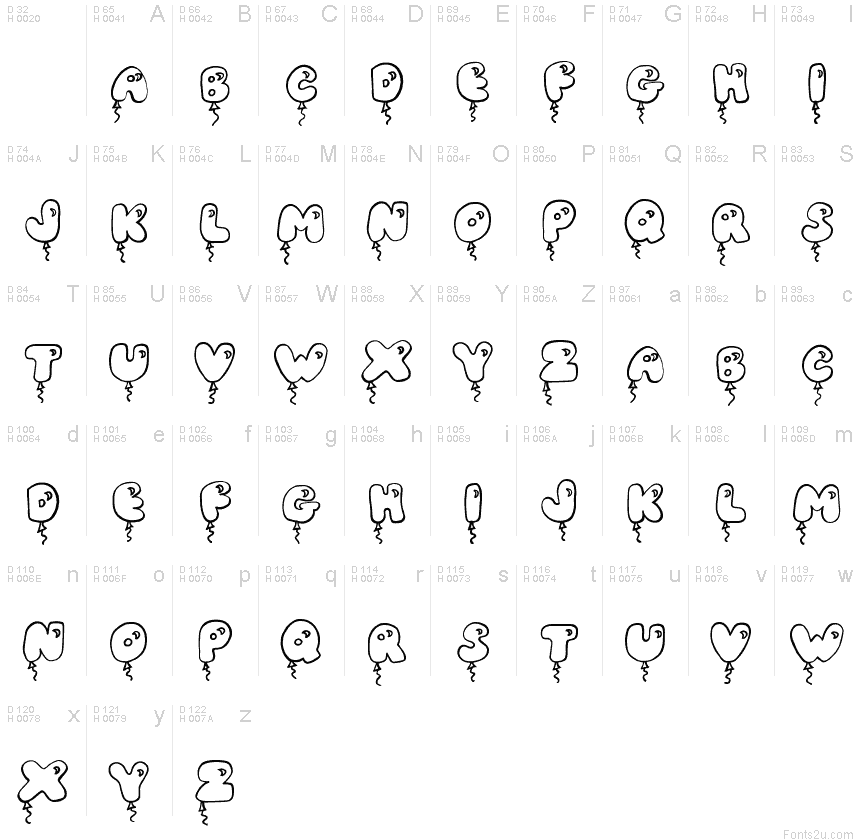
JI Balloon Caps
JI Balloon Caps font by Jeri Ingalls is a free cartoon display typeface that turns every letter into a plump, outlined balloon with a dangling string. The hand-drawn lines wobble slightly, giving the alphabet a breezy, party-store feel that’s more confetti than corporate. It’s light, bouncy, and fun without being fussy, so you can drop it into kid-focused layouts and instantly get that “party just started” energy.
Using JI Balloon Caps, you can lift birthday invitations, classroom posters, children’s book covers, party banners, craft printables, and playful social graphics. The generous shapes read clearly at larger sizes, where the balloon details really pop, while a simple rounded sans serif pairs nicely for smaller supporting text. This free font shines whenever you want a cheerful, celebratory look that still feels friendly and handmade.